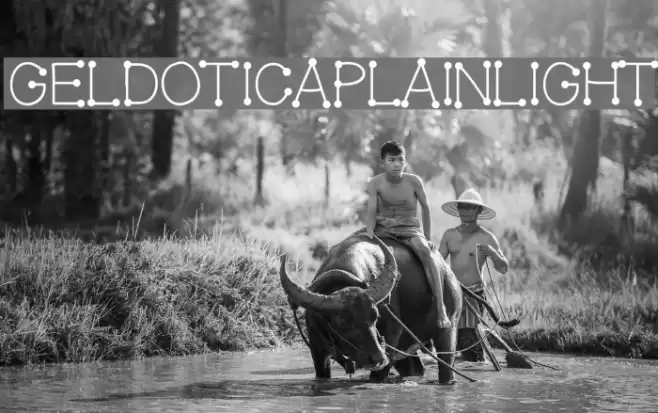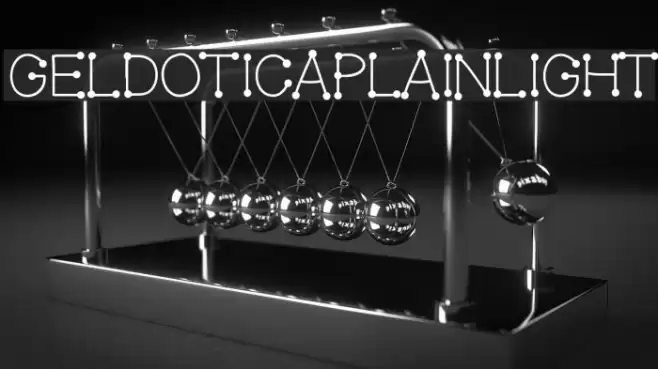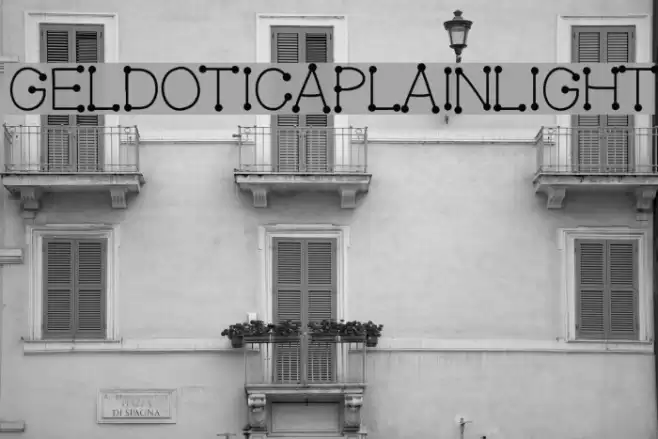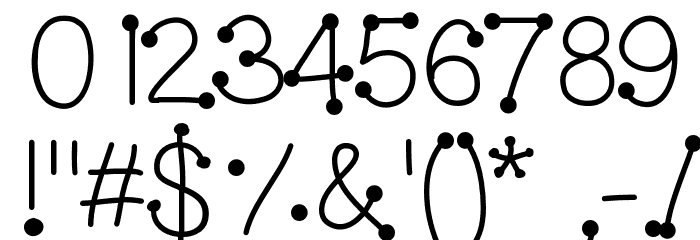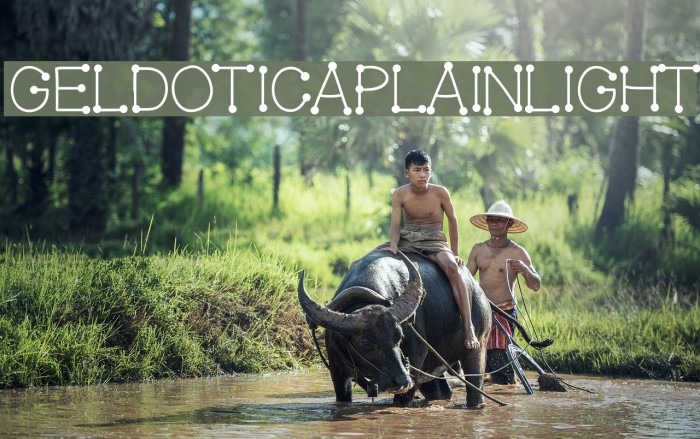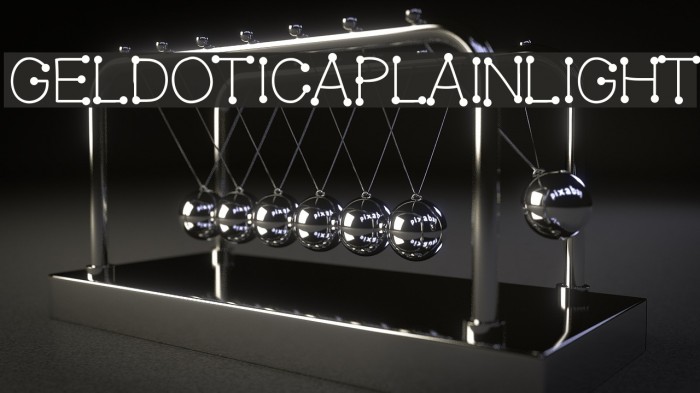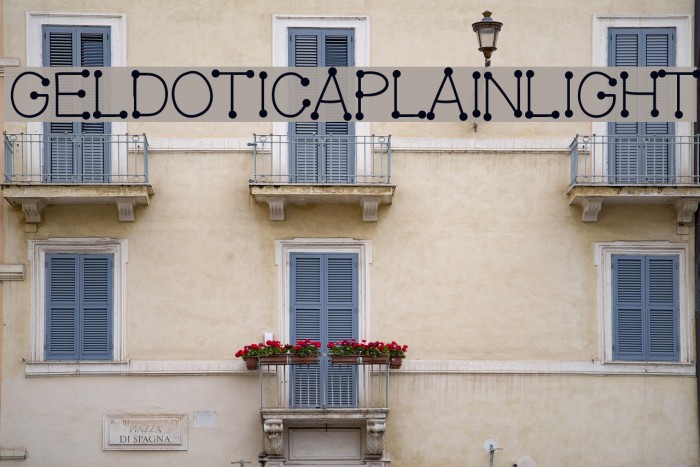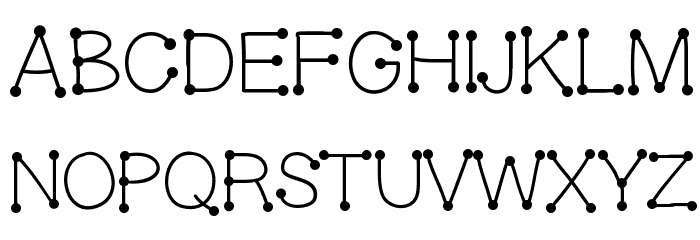
GelDoticaPlainLight
This font features a unique and playful design, characterized by its dotted connections between strokes. Each character is composed of bold lines with circular dots at the ends, creating a whimsical and modern appearance. The uppercase and lowercase letters maintain a consistent style, with rounded edges and a uniform thickness throughout. Numbers and special characters follow the same design principles, ensuring a cohesive look across all glyphs. The font's distinctive style makes it stand out, offering a fresh take on traditional typography.
A playful, modern font with dotted connections and bold lines.
- Proposed Projects: Ideal for children's books, playful branding, creative posters, and educational materials.
- Use Case: Logos, Posters, Creative projects